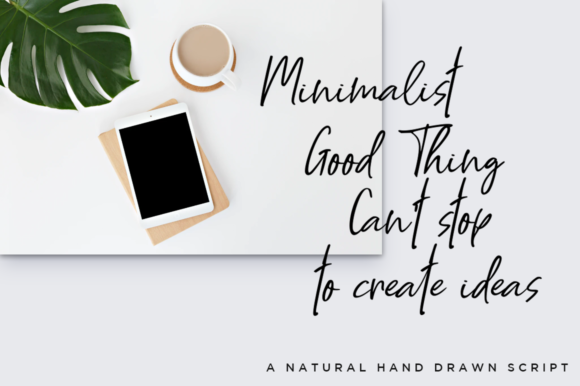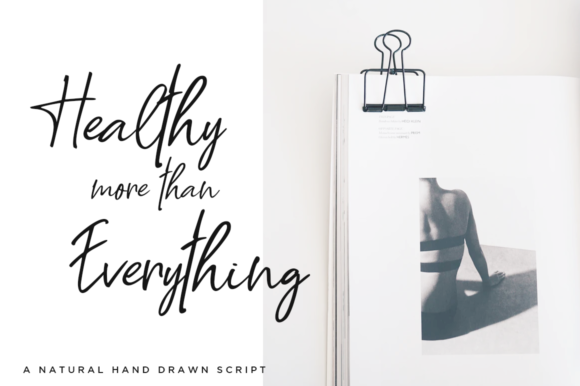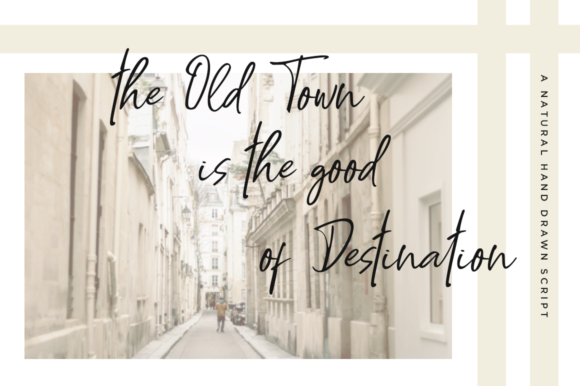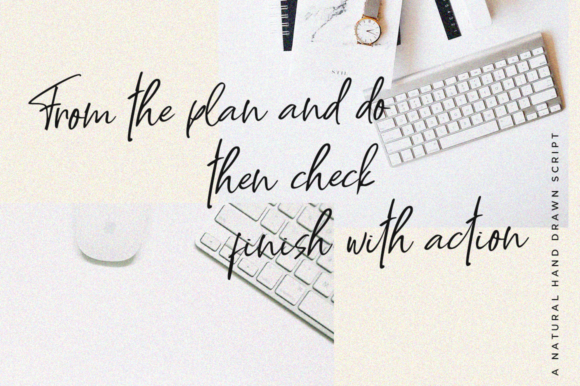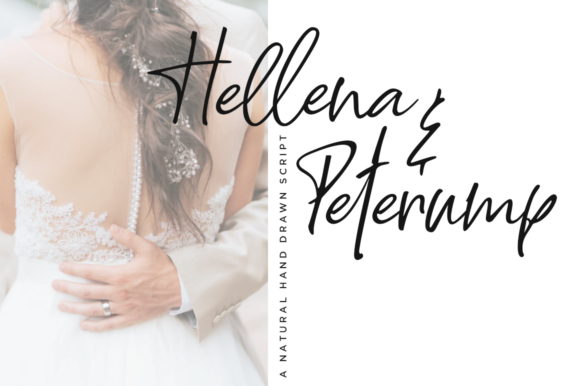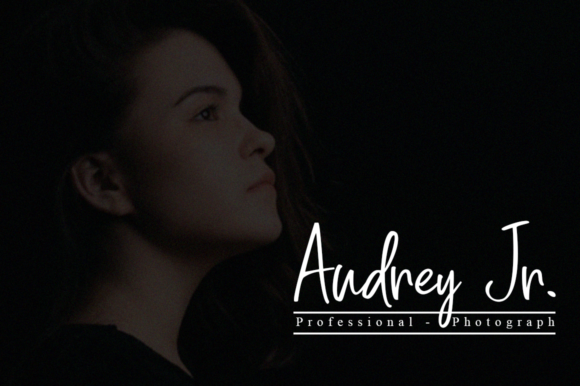
Ferments Font: A Charming Handwritten Style for Your Designs
Are you looking for a font that adds a touch of elegance and friendliness to your designs? Look no further than Ferments Font, a stunning handwritten font that pays homage to classic calligraphy. With its varying baseline, smooth lines, gorgeous glyphs, and stunning alternates, Ferments Font is the perfect choice for designers and crafters who want to add a personal touch to their work.
The Characteristics of Ferments Font
Ferments Font is a beautifully crafted handwritten font that exudes a sense of warmth and approachability. Its varying baseline gives it a natural, organic feel that is reminiscent of handwritten calligraphy. The smooth lines and flowing curves of the font make it a joy to read and use in designs. The gorgeous glyphs and stunning alternates add an extra layer of depth and visual interest to the font, making it perfect for a wide range of design applications.
What Makes Ferments Font So Special?
So, what sets Ferments Font apart from other fonts? Here are just a few reasons why designers and crafters are falling in love with this charming font:
- Unique and elegant design: Ferments Font has a distinctive, elegant design that is sure to turn heads. Its classic calligraphy-inspired style makes it perfect for a wide range of design applications, from wedding invitations to branding and packaging.
- Varying baseline: The varying baseline of Ferments Font gives it a natural, organic feel that is reminiscent of handwritten calligraphy. This feature adds a touch of warmth and personality to your designs.
- Beautiful glyphs and alternates: Ferments Font comes with a range of gorgeous glyphs and stunning alternates that add an extra layer of depth and visual interest to your designs. These glyphs and alternates can be used to create unique and eye-catching text effects.
- Easy to read and use: Despite its elegant design, Ferments Font is easy to read and use in a wide range of design applications. Its smooth lines and flowing curves make it a joy to work with.
How to Use Ferments Font in Your Designs
Ferments Font is a versatile font that can be used in a wide range of design applications. Here are just a few ideas to get you started:
- Wedding invitations and stationery: Ferments Font is perfect for creating beautiful, elegant wedding invitations and stationery. Its classic calligraphy-inspired style makes it a popular choice for wedding designers.
- Branding and packaging: Ferments Font can be used to create unique and eye-catching branding and packaging designs. Its elegant design and varying baseline make it perfect for adding a touch of personality to your brand.
- Signage and display graphics: Ferments Font can be used to create stunning signage and display graphics. Its smooth lines and flowing curves make it easy to read and use in large formats.
- Digital designs: Ferments Font can be used in a wide range of digital designs, from social media graphics to website headers. Its elegant design and easy-to-read style make it perfect for digital applications.
Tips for Getting the Most Out of Ferments Font
Here are just a few tips for getting the most out of Ferments Font:
- Experiment with different sizes and styles: Ferments Font looks great in a wide range of sizes and styles. Experiment with different sizes and styles to find the one that works best for your design.
- Use the glyphs and alternates: Ferments Font comes with a range of gorgeous glyphs and stunning alternates. Use these to add an extra layer of depth and visual interest to your designs.
- Pair it with other fonts: Ferments Font can be paired with a wide range of other fonts to create unique and eye-catching designs. Experiment with different font combinations to find the one that works best for your design.
| Font Name | Ferments Font |
Ferments Font is a charming handwritten font that is perfect for designers and crafters who want to add a personal touch to their work. With its elegant design, varying baseline, smooth lines, gorgeous glyphs, and stunning alternates, Ferments Font is the perfect choice for a wide range of design applications. Whether you’re creating wedding invitations, branding and packaging, signage and display graphics, or digital designs, Ferments Font is sure to impress.